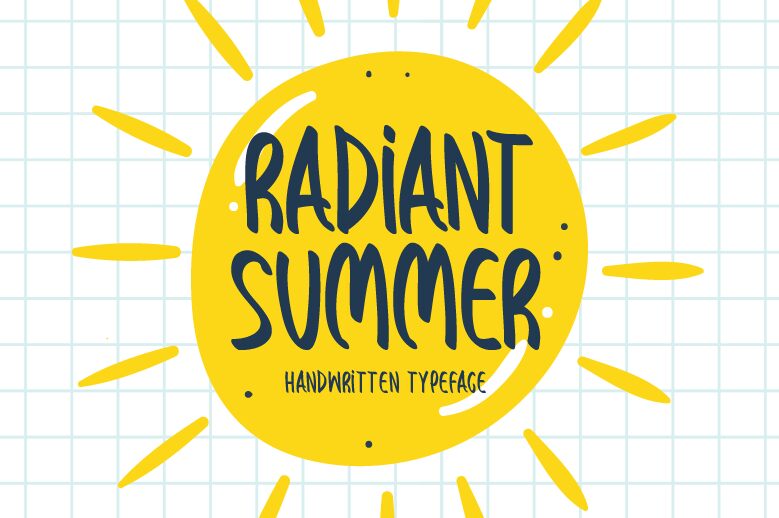
Radiant Summer, designed by Md Shohail Bhuian, is a captivating handwritten font that exudes warmth and creativity.
With its semi-light weight and condensed width, this font is perfect for adding a touch of elegance to your wedding invitations or creating charming greeting cards. Its flowing curves and unique letterforms also make it suitable for crafting eye-catching logos or designing playful packaging for artisanal products. Whether you're working on a whimsical children's book or want to add a personal touch to your blog graphics, Radiant Summer will infuse your projects with an undeniable charm.